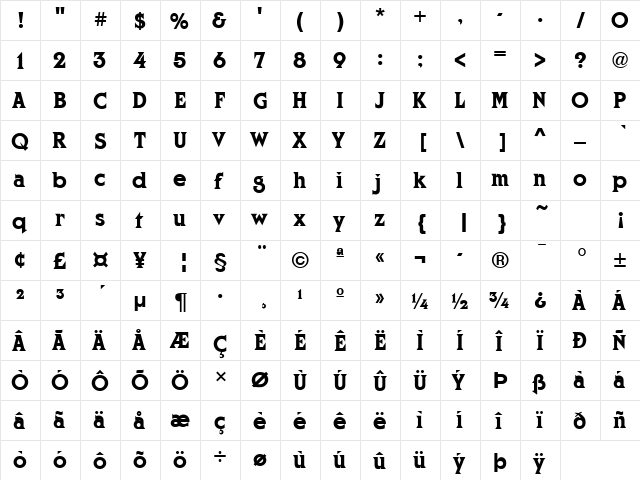
Cortez Regular
Design Context for Cortez Typeface
Cortez takes a measured approach to typography — its balanced proportions and neutral character make it a reliable workhorse for both digital and print work.
Pro Tip: Use Cortez in both headline and body roles to test its range before committing to a single application.